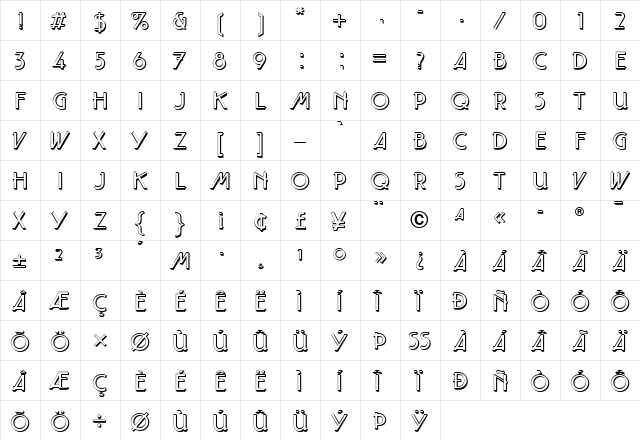
Taut LT Shadow Regular
Design Context for Taut LT Shadow Typeface
Taut LT Shadow brings ornamental detail and strong personality to headlines and identities, where visual impact matters more than quiet functionality. Its slender proportions lend an understated elegance to any composition.
Font Pairing: Pair with a clean neutral sans-serif for body copy to let Taut LT Shadow's character lead without overwhelming the composition.
Pro Tip: Use Taut LT Shadow exclusively at display sizes — it was designed to be seen, not read at length. Let a neutral companion handle body copy.